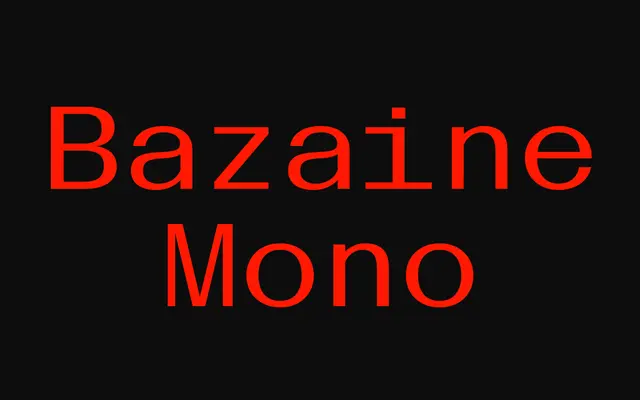
BST Bazaine Mono specimen from British Standard Type
A grotesque monospace drawn from Wim Crouwel's hand-lettered poster for a 1959 Bazaine exhibition, with tight apertures, asymmetric junctures and boxy proportions that give it a distinctive tension.
Rooted in the only surviving letterforms from a Wim Crouwel poster made for a Jean René Bazaine exhibition at Eindhoven's Van Abbemuseum, the typeface translates that hand-lettered source into a seven-weight monospace grotesque. Boxy widths, a high x-height and tight apertures create a compact, taut rhythm across both display and text settings. Stylistic sets include unicase capitals, small caps and alternate forms, extending its typographic range considerably.
A monospaced grotesque with unusual contrast and asymmetric junctures, rooted in hand-lettered forms from a 1959 Wim Crouwel poster. The fixed-width construction combined with grotesque structure places it clearly in the grotesque monospace subcategory.